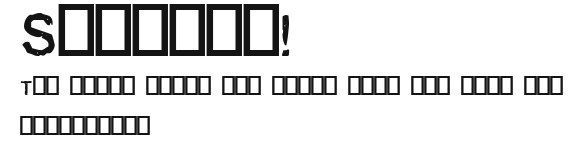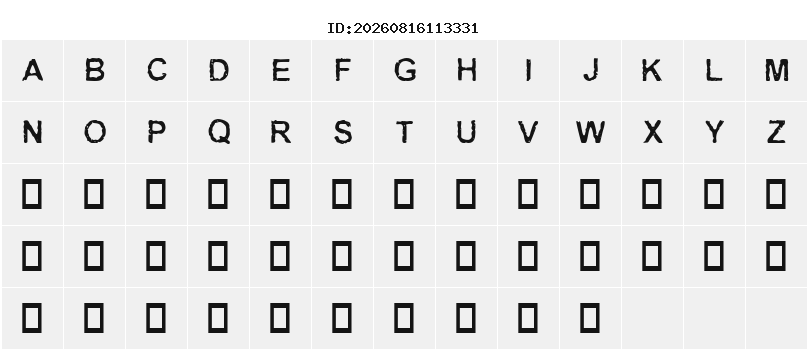
Stamped! Preview
About Stamped!.ttf
Stamped!.ttf is a modern, elegant sans-serif font designed for ultimate readability and visual harmony. Perfect for branding, headlines, web design, and print materials.